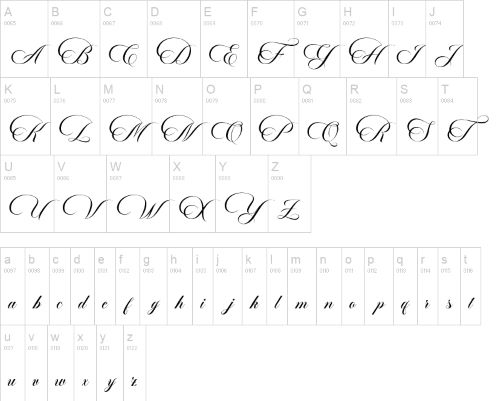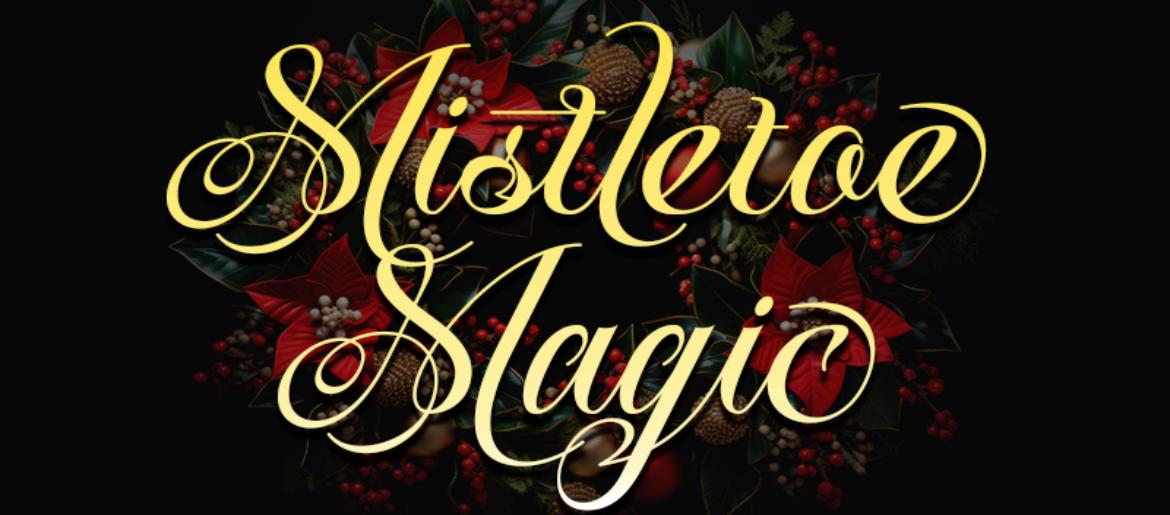
Mistletoe Magic Font
Mistletoe Magic Font is a festive script typeface filled with warmth and holiday charm. Its flowing strokes, playful swashes, and cozy handwritten feel make it perfect for Christmas cards, invitations, gift tags, seasonal branding, and winter-themed designs. Mistletoe Magic adds romance, joy, and a magical holiday spirit to any creative project.
➤ Font Name: Mistletoe Magic
➤ Designer: Letterara
➤ Style: Calligraphy